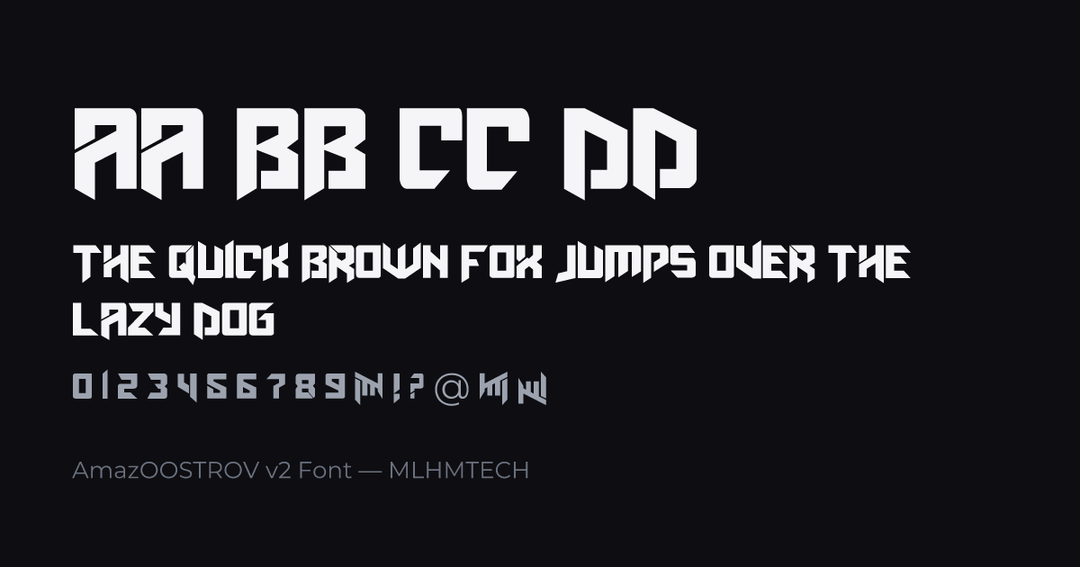
AmazOOSTROV v2 Font
AmazOOSTROV v2 is a distinctive display font that adds character to any project. Ideal for headlines, logos, and creative branding.
AmazOOSTROV v2 is a handpicked display font with a unique, modern aesthetic. Its bold and quirky letterforms make it perfect for grabbing attention in titles, posters, and branding materials. The font's distinctive style ensures your designs stand out from the crowd.
This font is versatile and works well in both digital and print media. Whether you're designing a logo, a social media graphic, or a product label, AmazOOSTROV v2 brings a fresh, creative energy. Its legibility at various sizes makes it suitable for both large headlines and smaller accents.